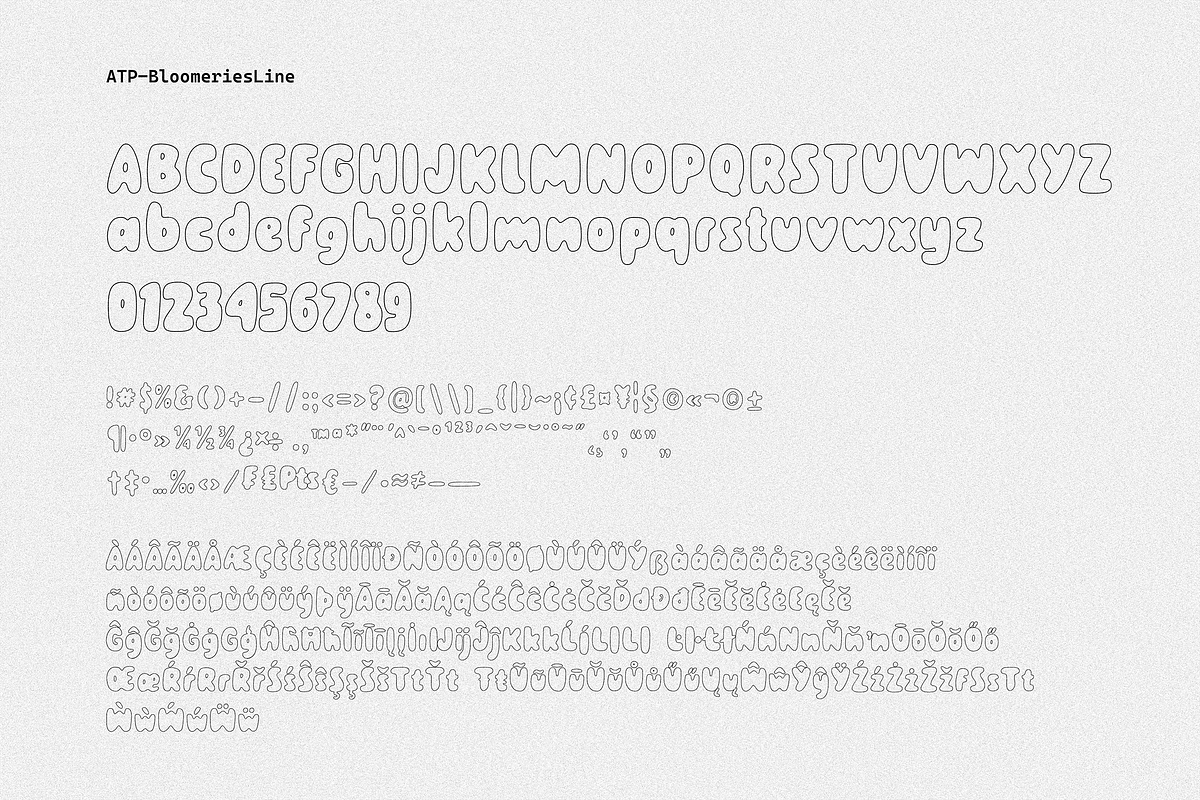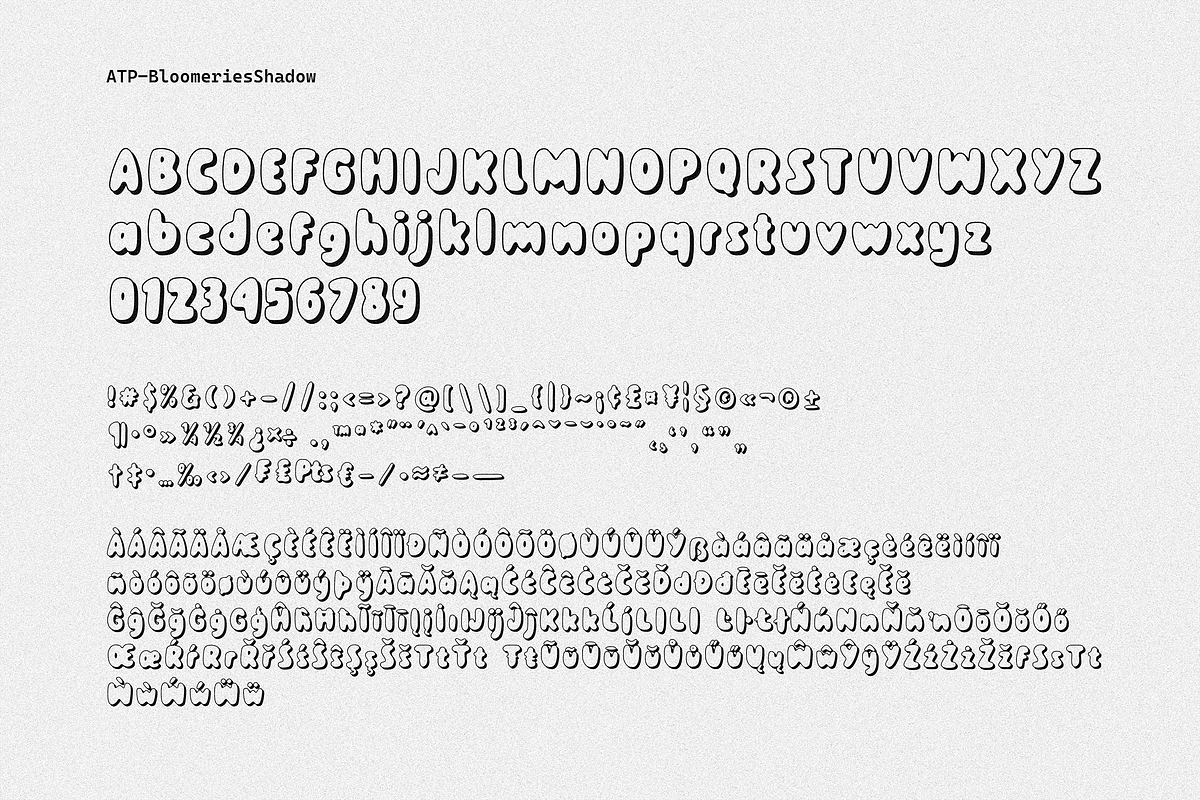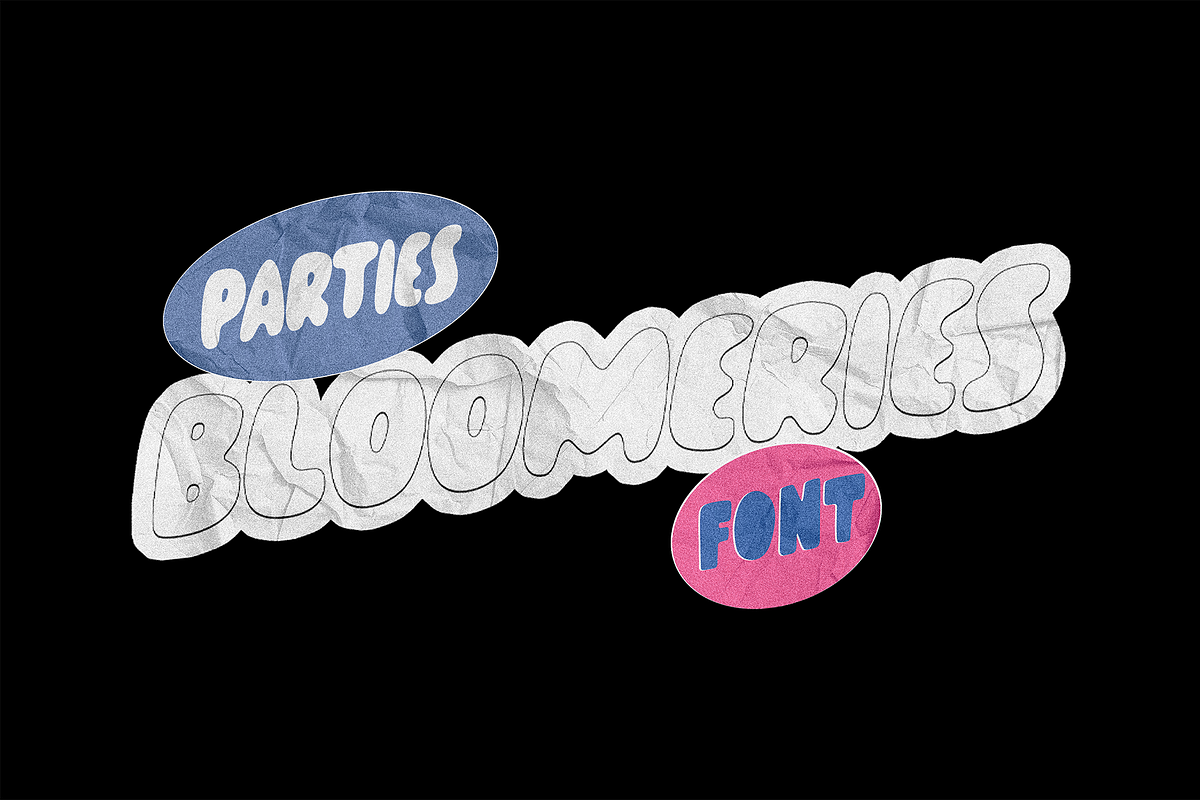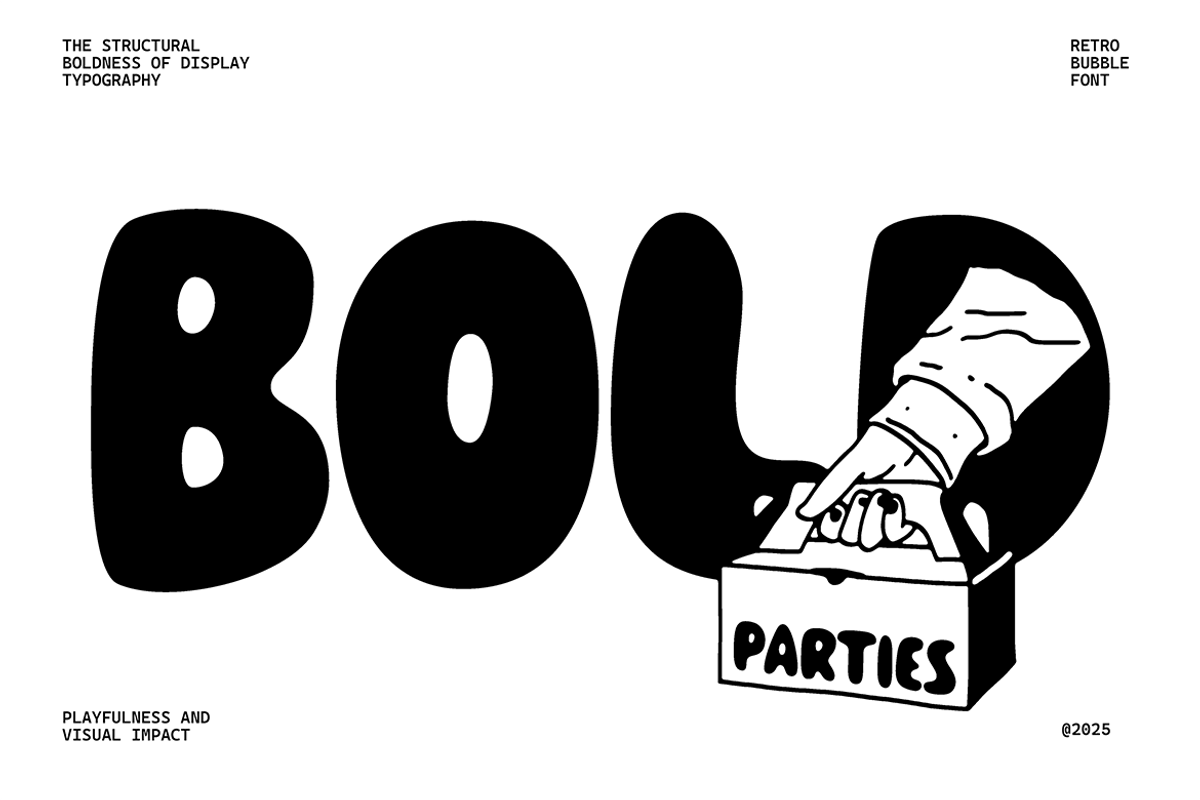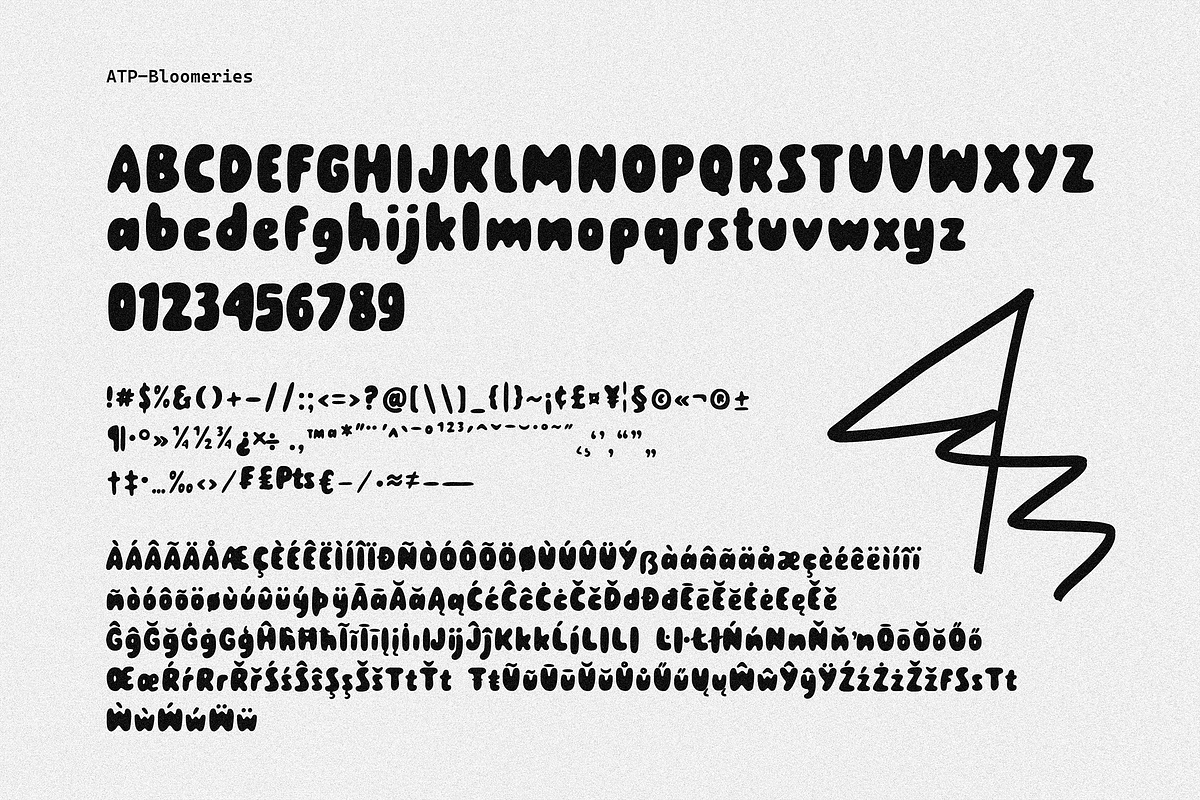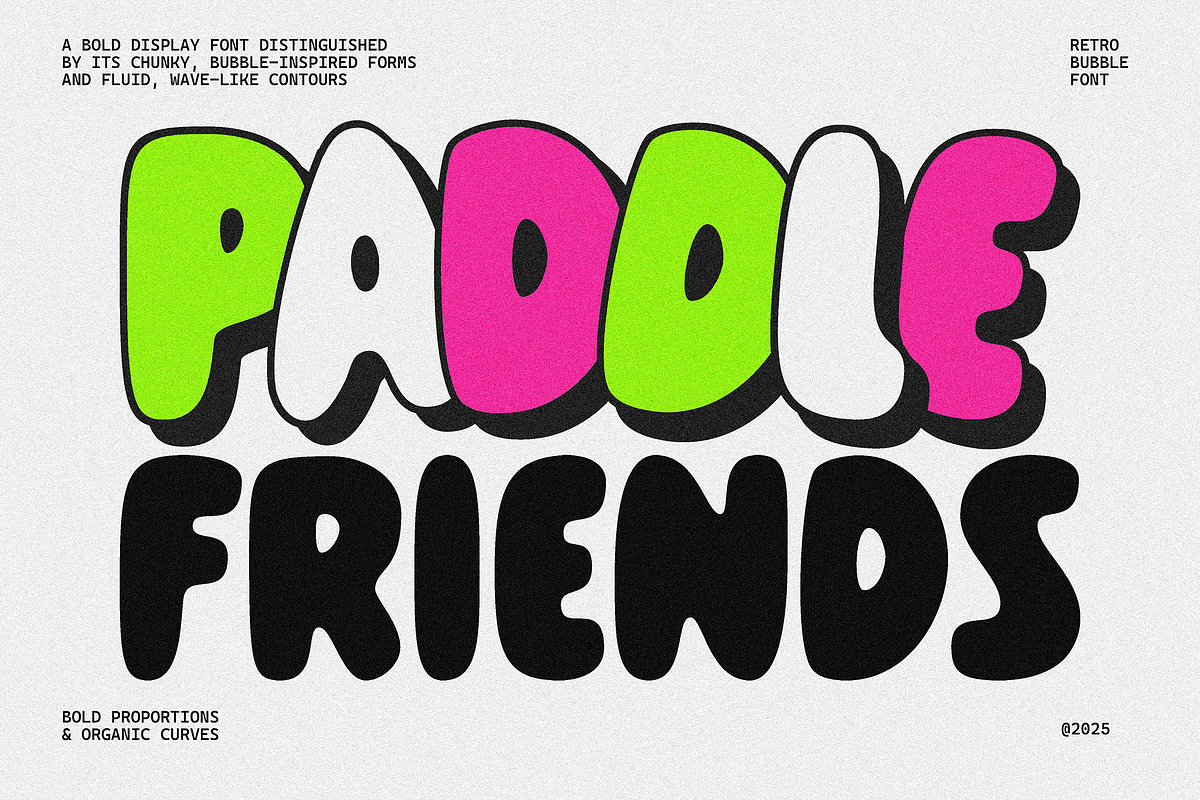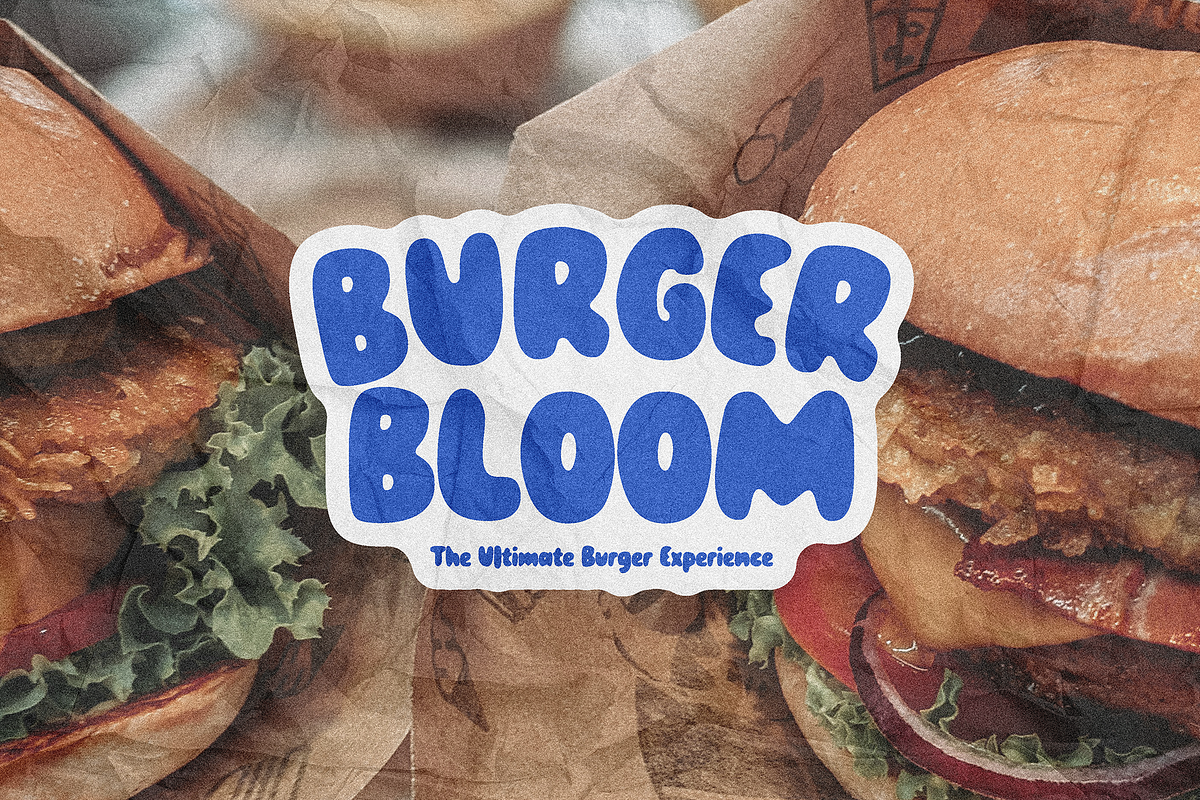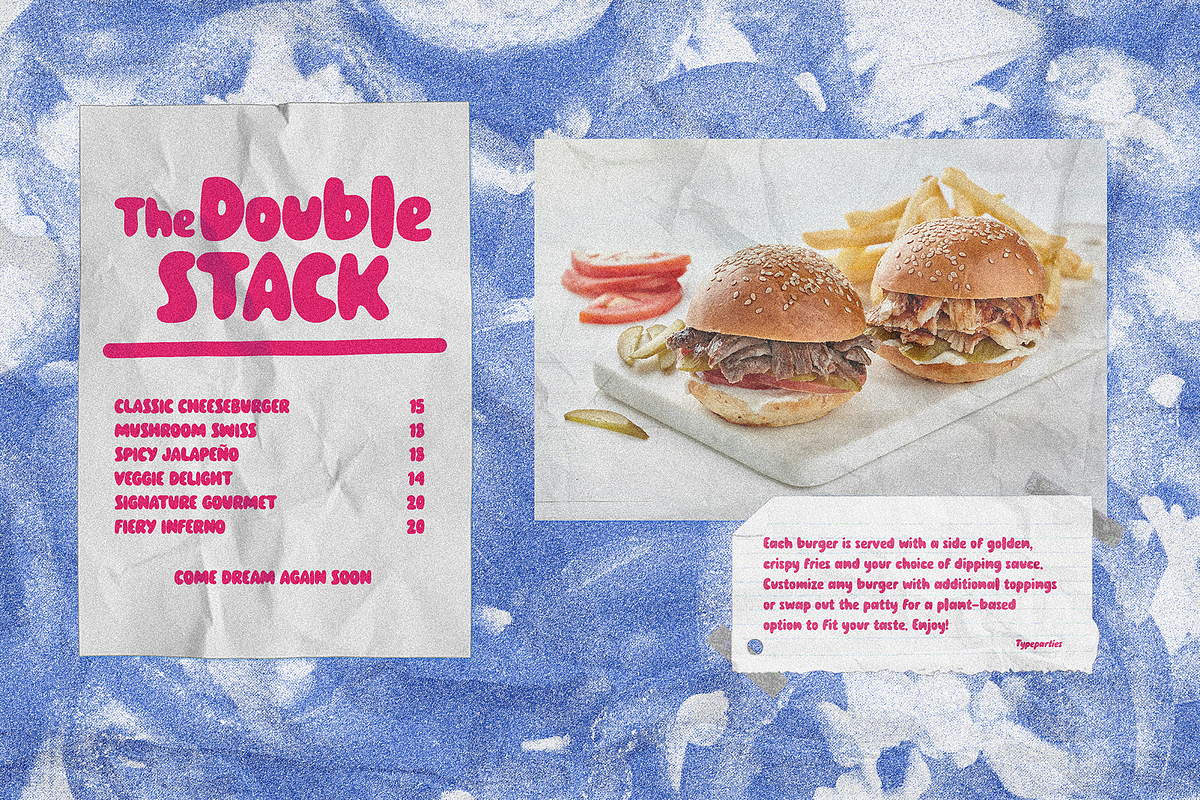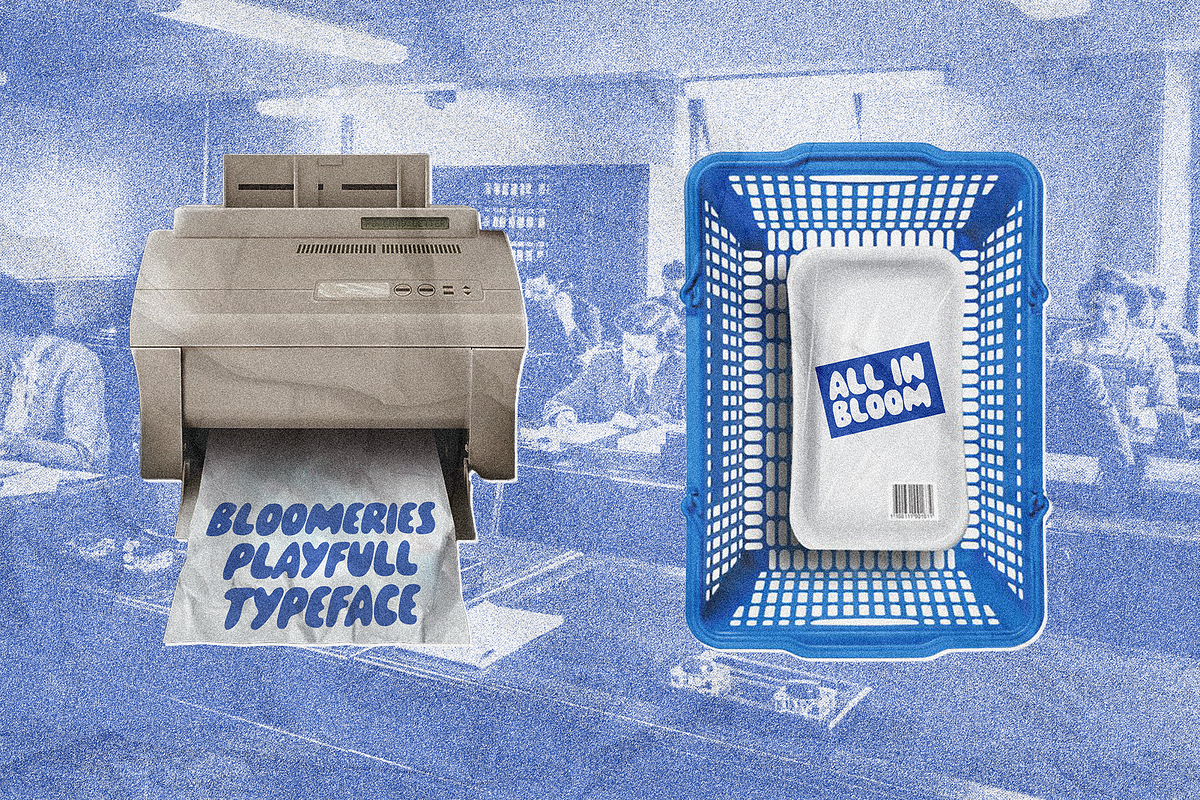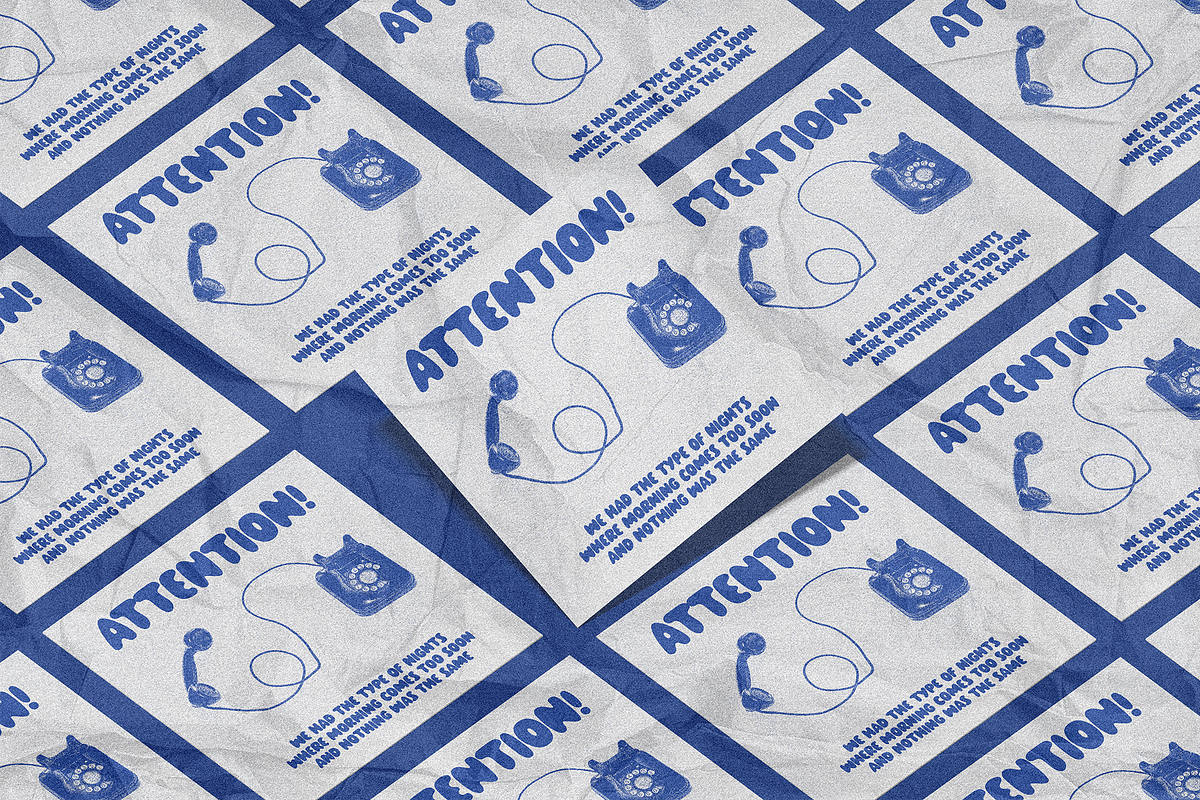
Bloomeries - Bold Display Font
A bold display font distinguished by its chunky, bubble-inspired forms and fluid, wave-like contours. Its design merges retro aesthetics with contemporary playfulness, evoking the visual language of 1970s psychedelic posters and funky album covers while remaining versatile for modern design needs. The rounded, organic structure of each letterform creates a friendly rhythm that captures attention without sacrificing readability. Ideal for headlines, packaging, branding, and social media graphics, this font offers both visual impact and nostalgic charm. It is especially well-suited for projects aiming to communicate energy, creativity, and a touch of vintage eccentricity.